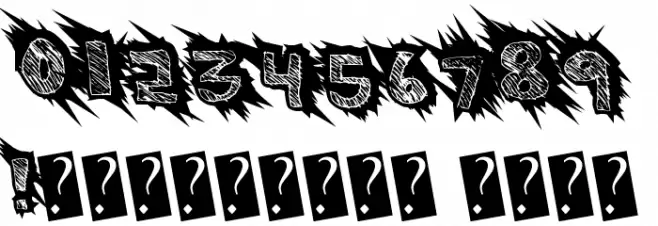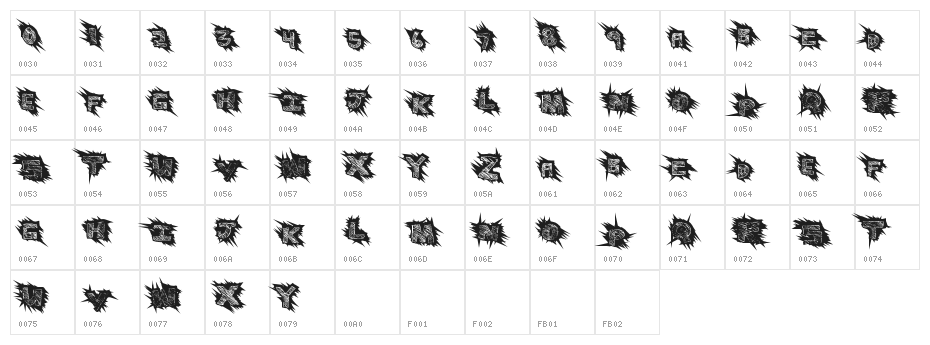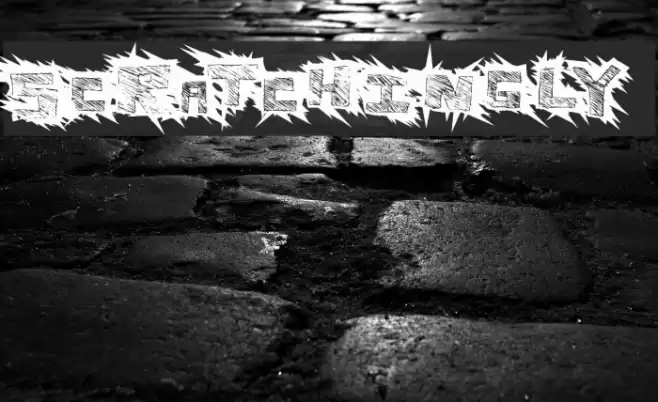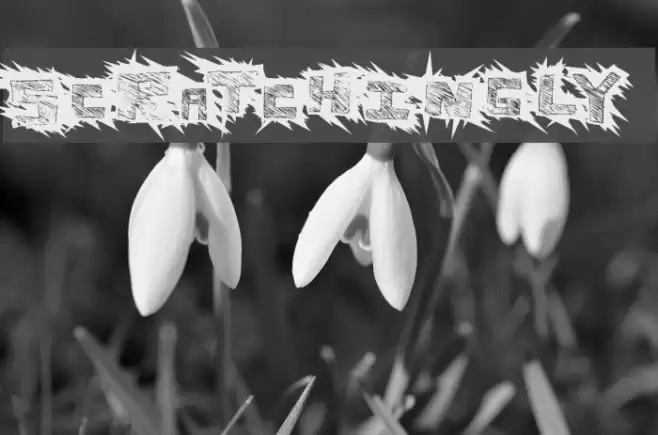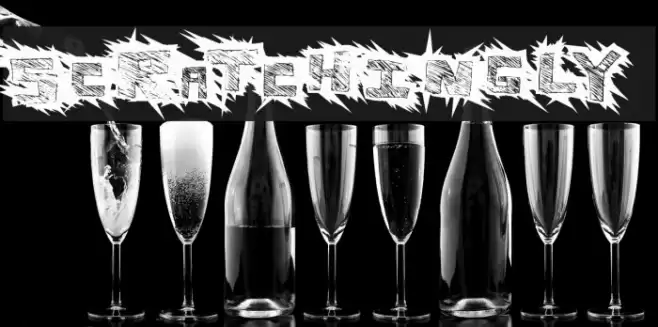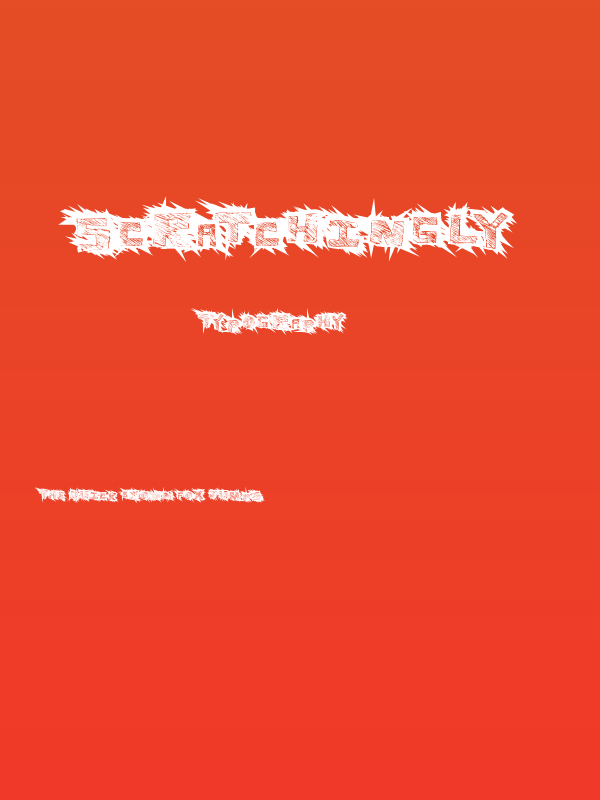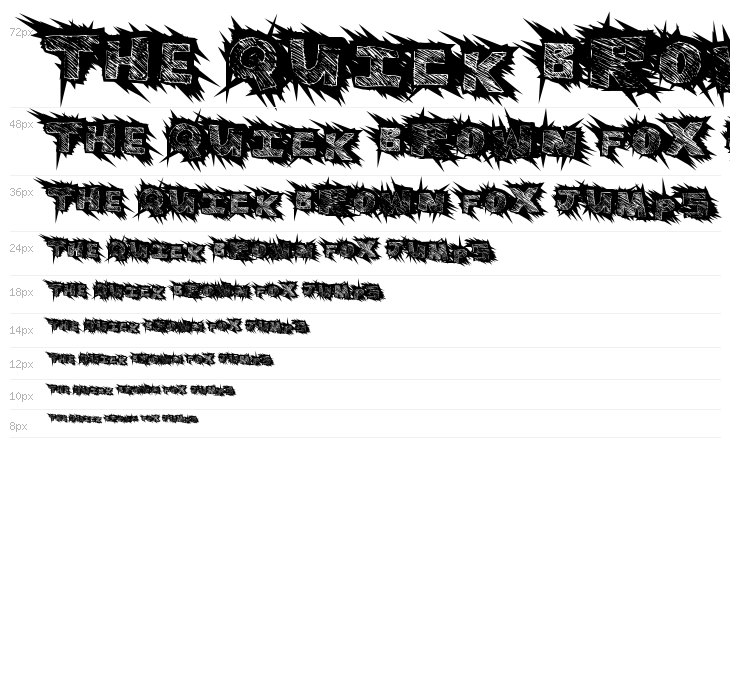
Scratchingly Font
Scratchingly Description
This font features a highly distinctive and aggressive design, characterized by jagged, scratch-like edges that give it a chaotic and energetic appearance. The letters are bold and heavily stylized, with a rough texture that suggests movement and intensity. The uppercase and lowercase letters maintain a consistent style, while the numbers and special characters follow the same dynamic pattern. This font is visually striking and commands attention, making it suitable for projects that require a bold statement.